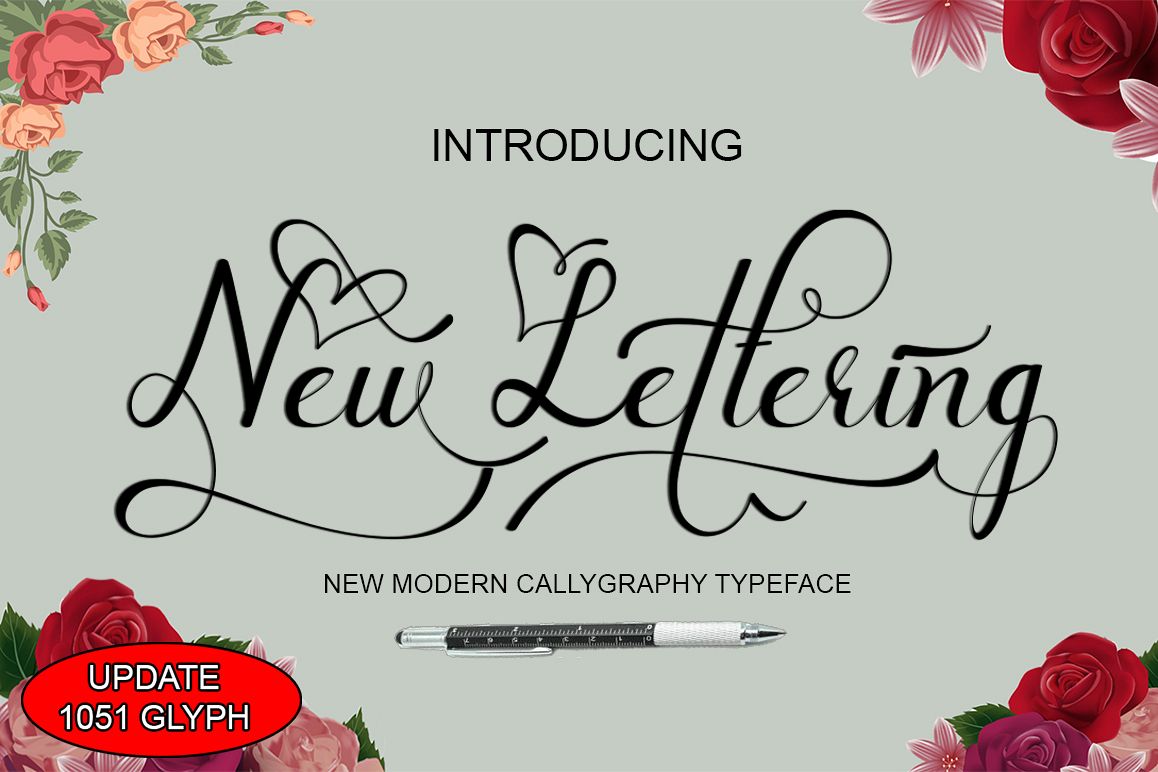
New lettering update
New lettering Script
New lettering Script New fresh & modern style with handmade calligraphy, decorative characters and dancing lineage! So wonderful are invitations like greeting cards, branding material, business cards, quotes, posters, and more !!
New lettering Script The comes with 840 glyphs. Alternate characters are divided into several Open Type features such as Swash, Stylistic Sets, Stylistic Alternate, Contextual Alternate. Open Type features are accessible by using Open Type savvy programs such as Adobe Illustrator, Adobe InDesign, Adobe Photoshop Corel Draw X versions, and Microsoft Word. And this font has code PUA unicode (font with special code). So that all alternative characters can be easily accessed by craftsmen or designers.
New lettering Script
Uppercase & lowercase International signature & symbol Punctuation Support & PUA number Unicode Style Style Alternative Style Style Range 1-26 Contextual Character Variations.